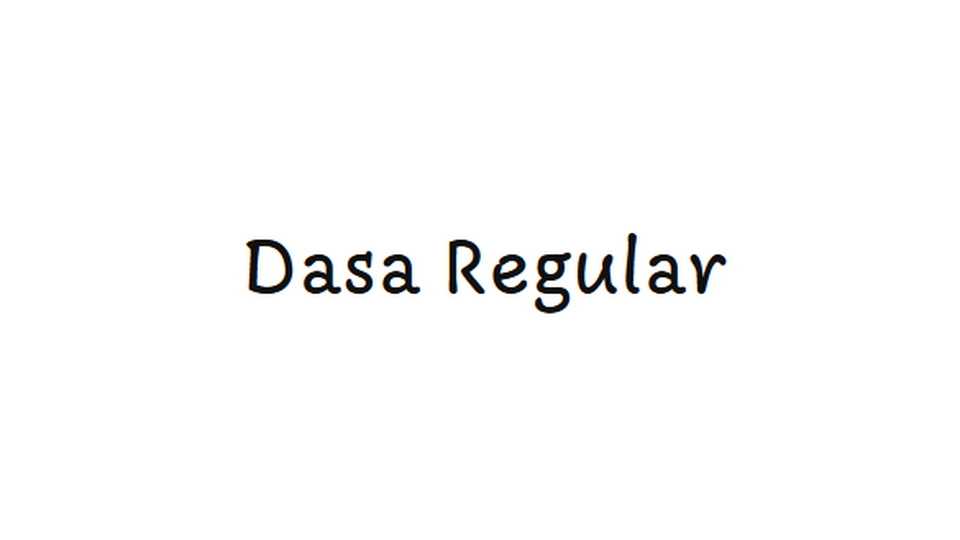
Download Dasa font, an informal, handwriting-style typeface that looks as if it has been written slowly, not in a hurried manner. Think of it as closer to “love letters” on the handwriting-spectrum, rather than a grocery shopping list.
Designer: Dan Reynolds